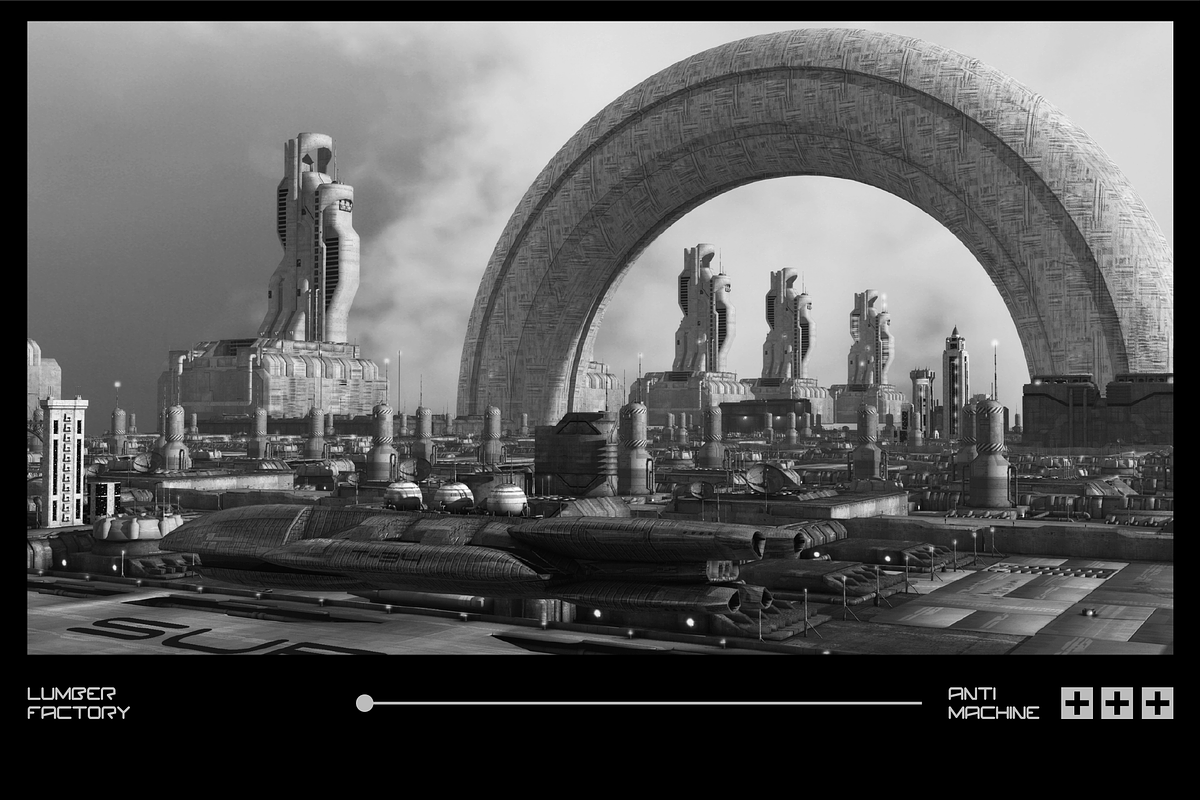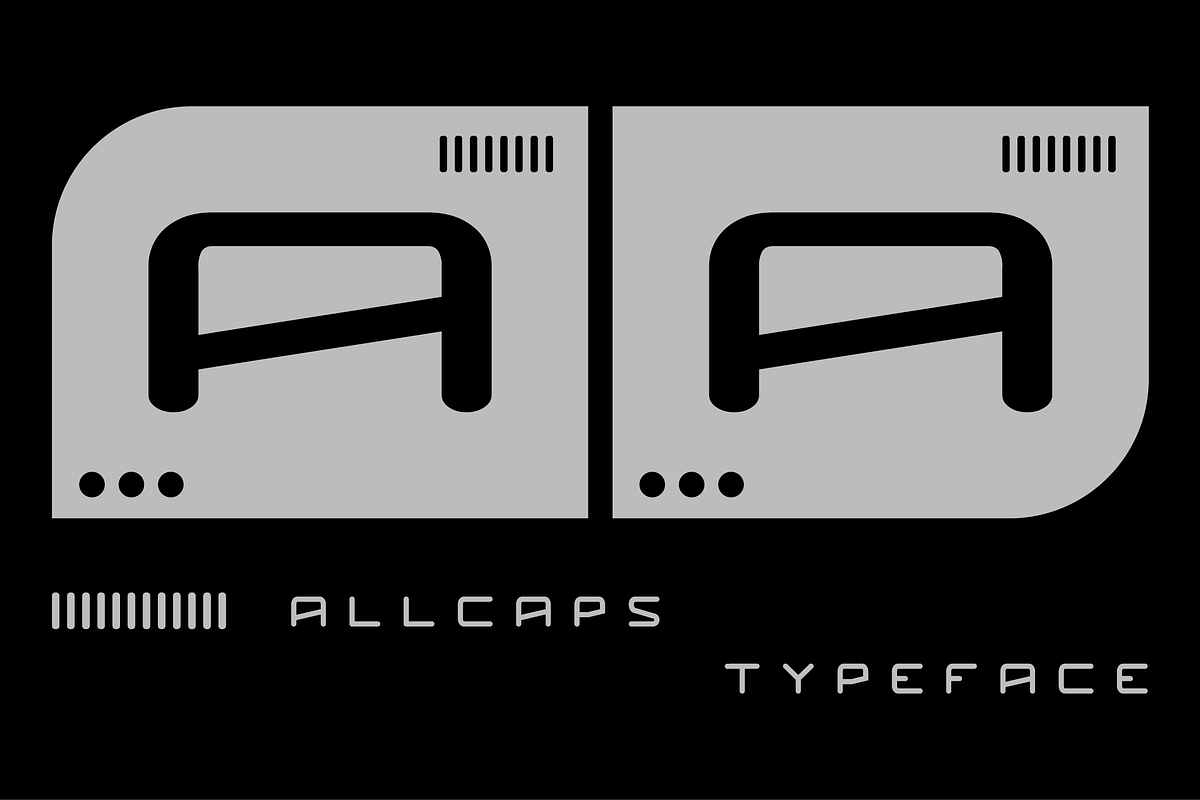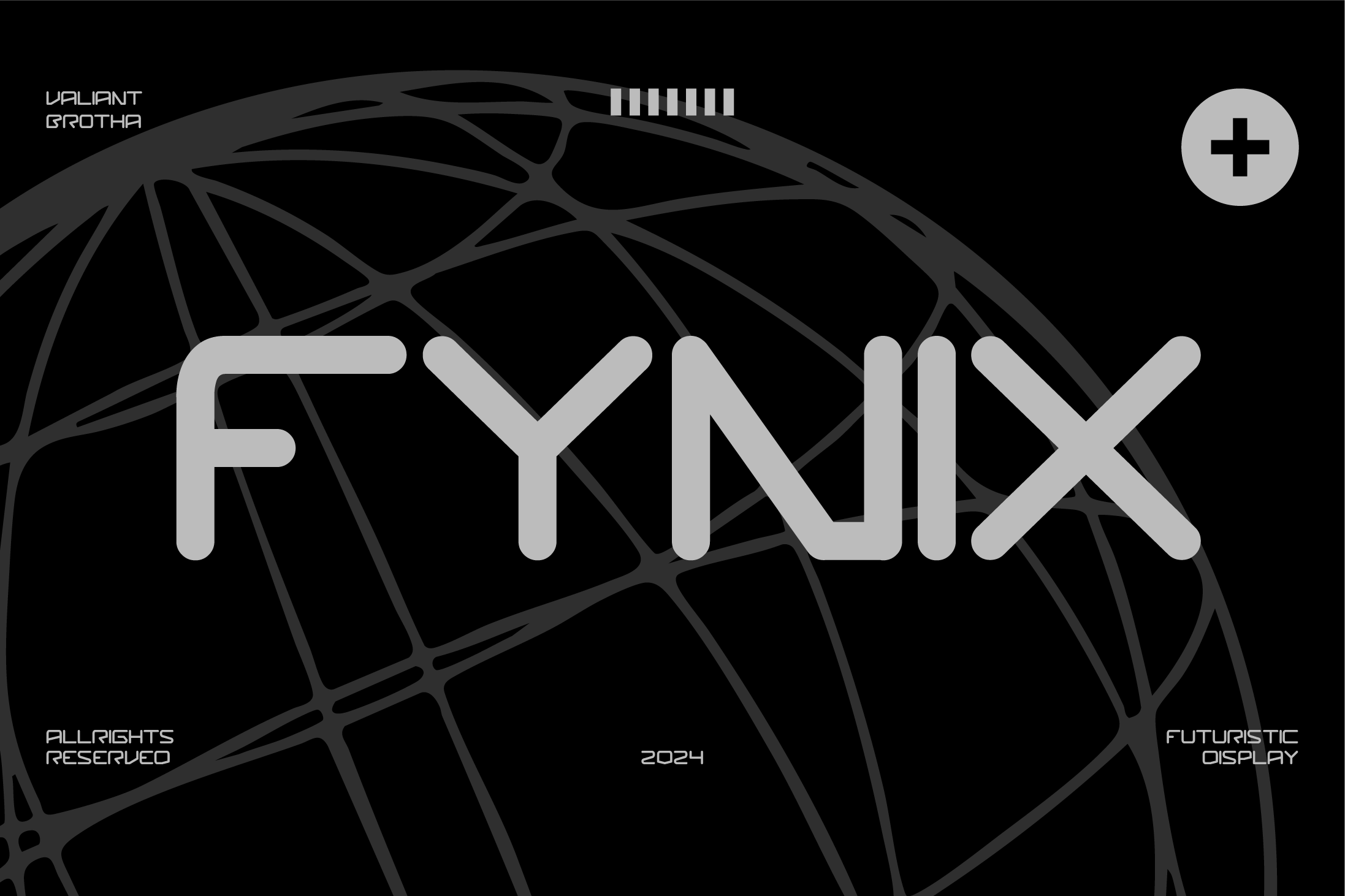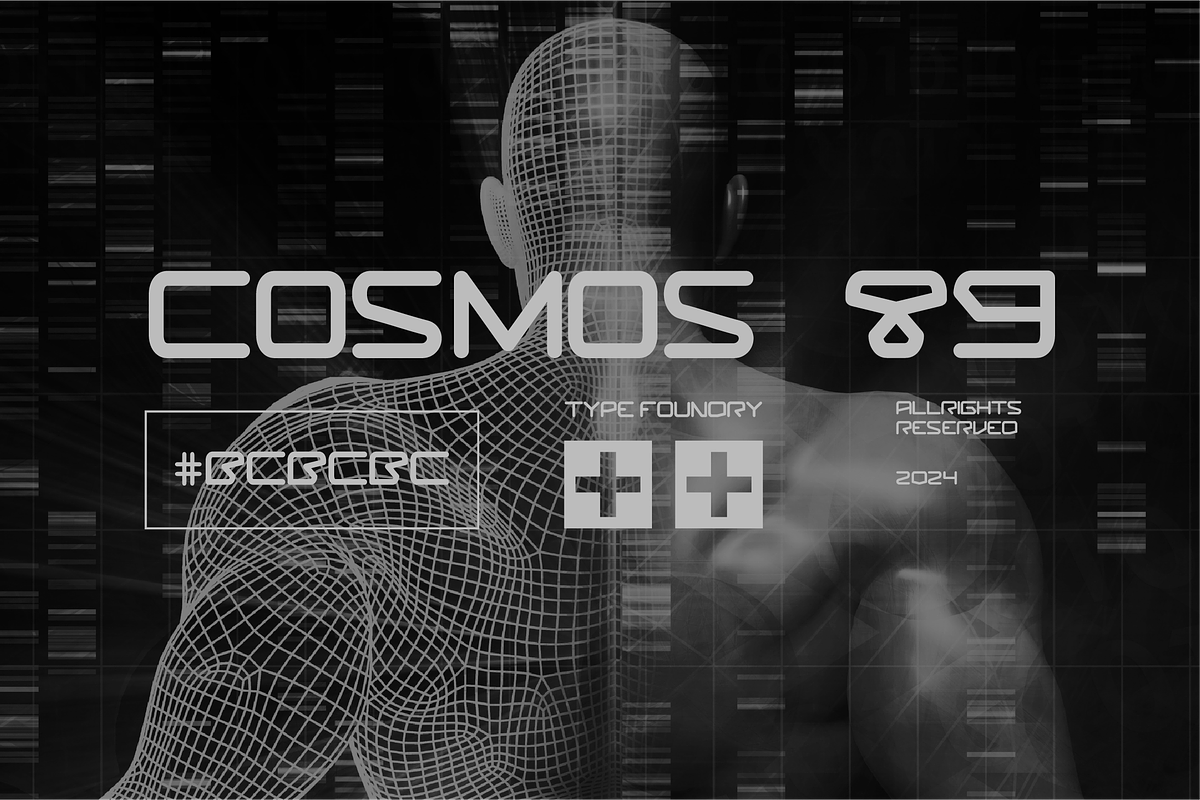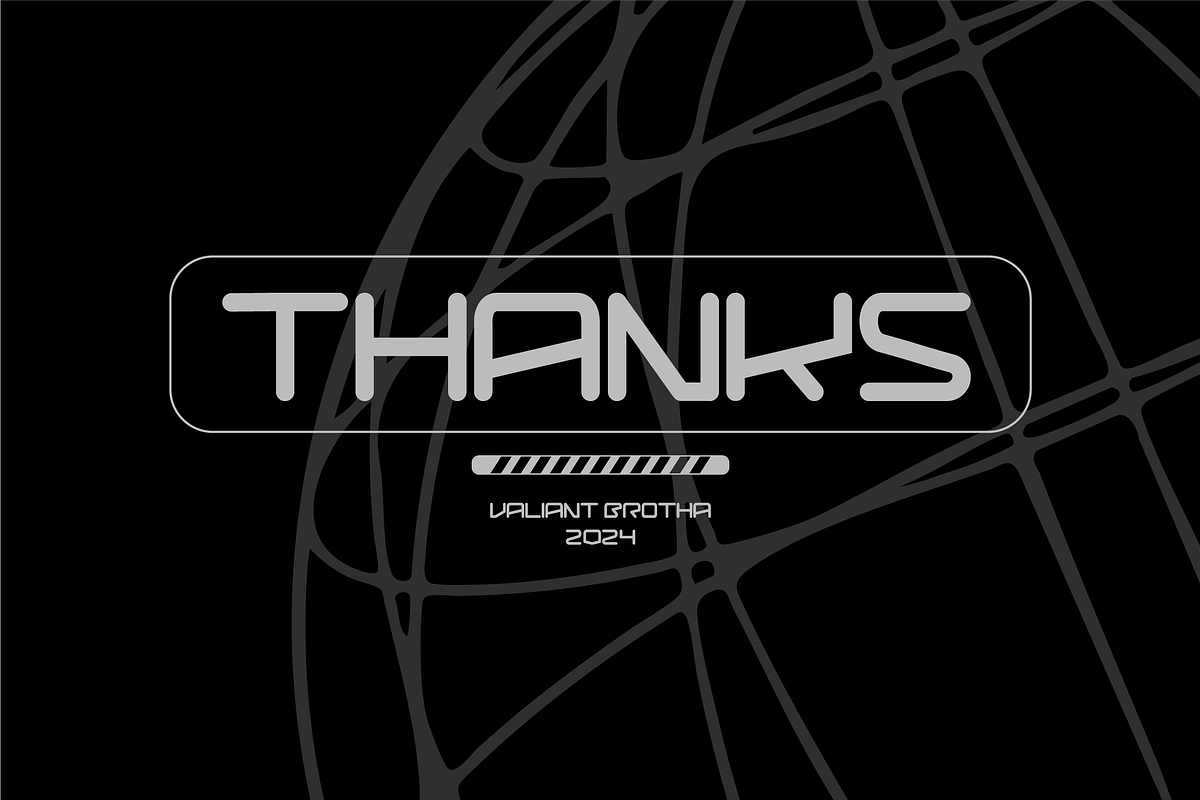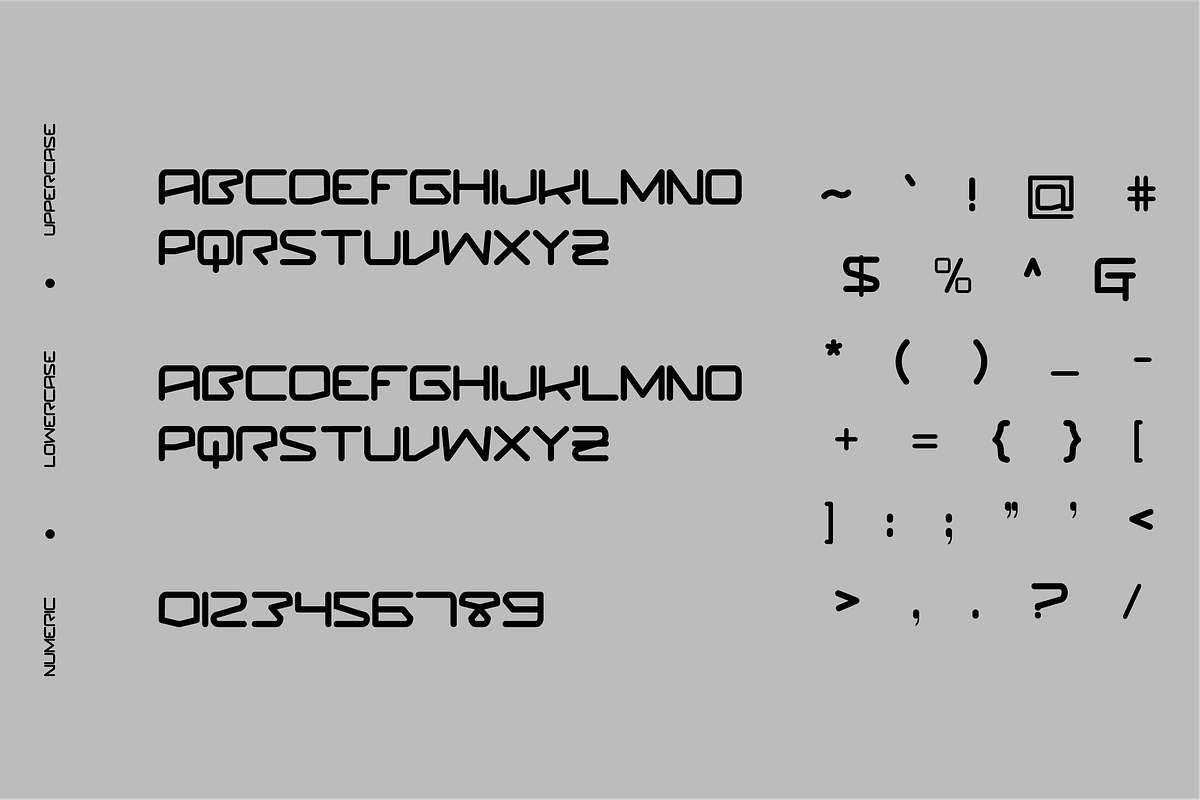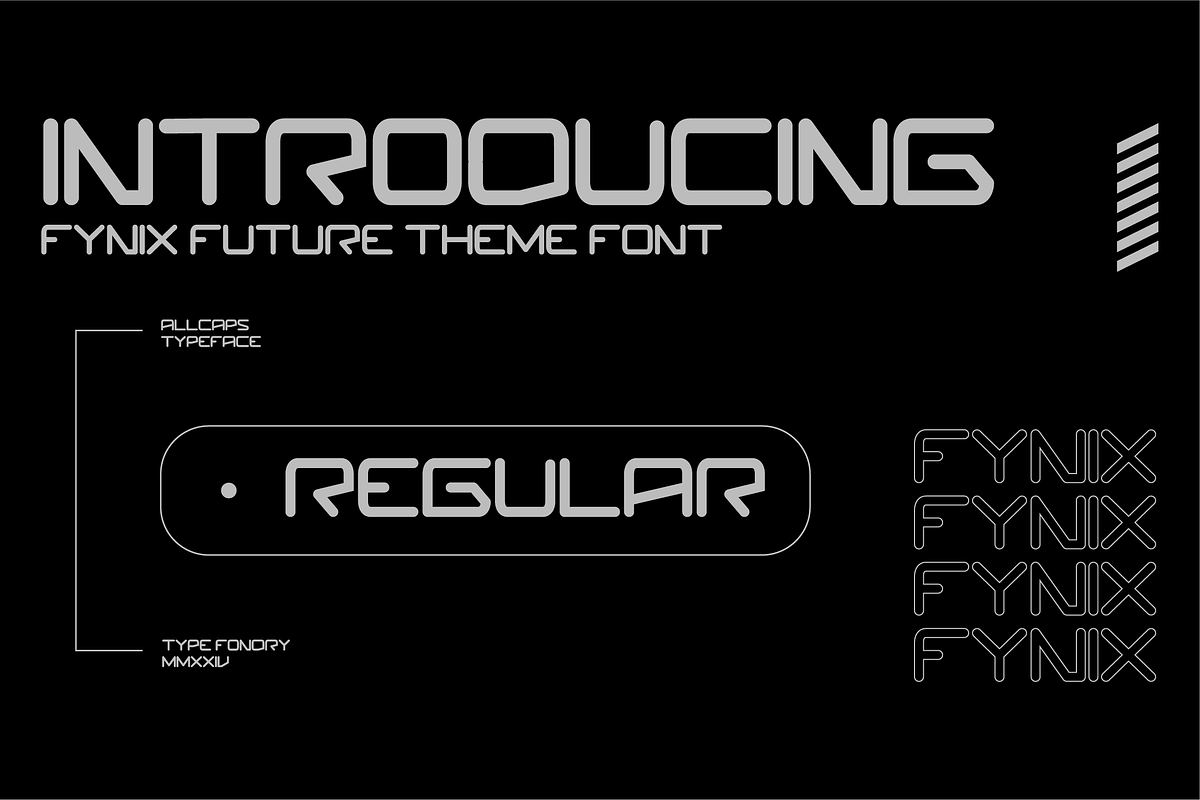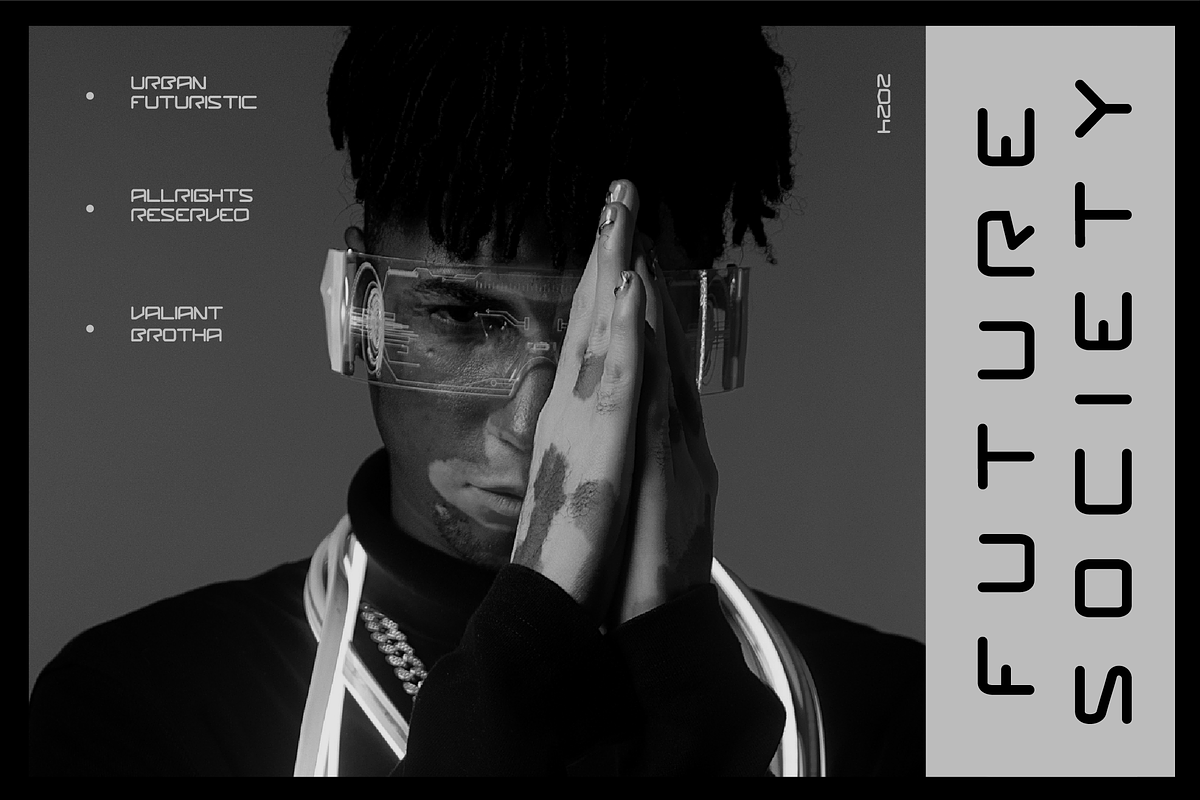
VB Fynix - Futuristic Font
The future with Fynix Font, a cutting-edge typeface that blends sleek geometry with bold creativity. Designed for the modern visionary, this font is perfect for tech-inspired projects, sci-fi themes, and innovative branding.